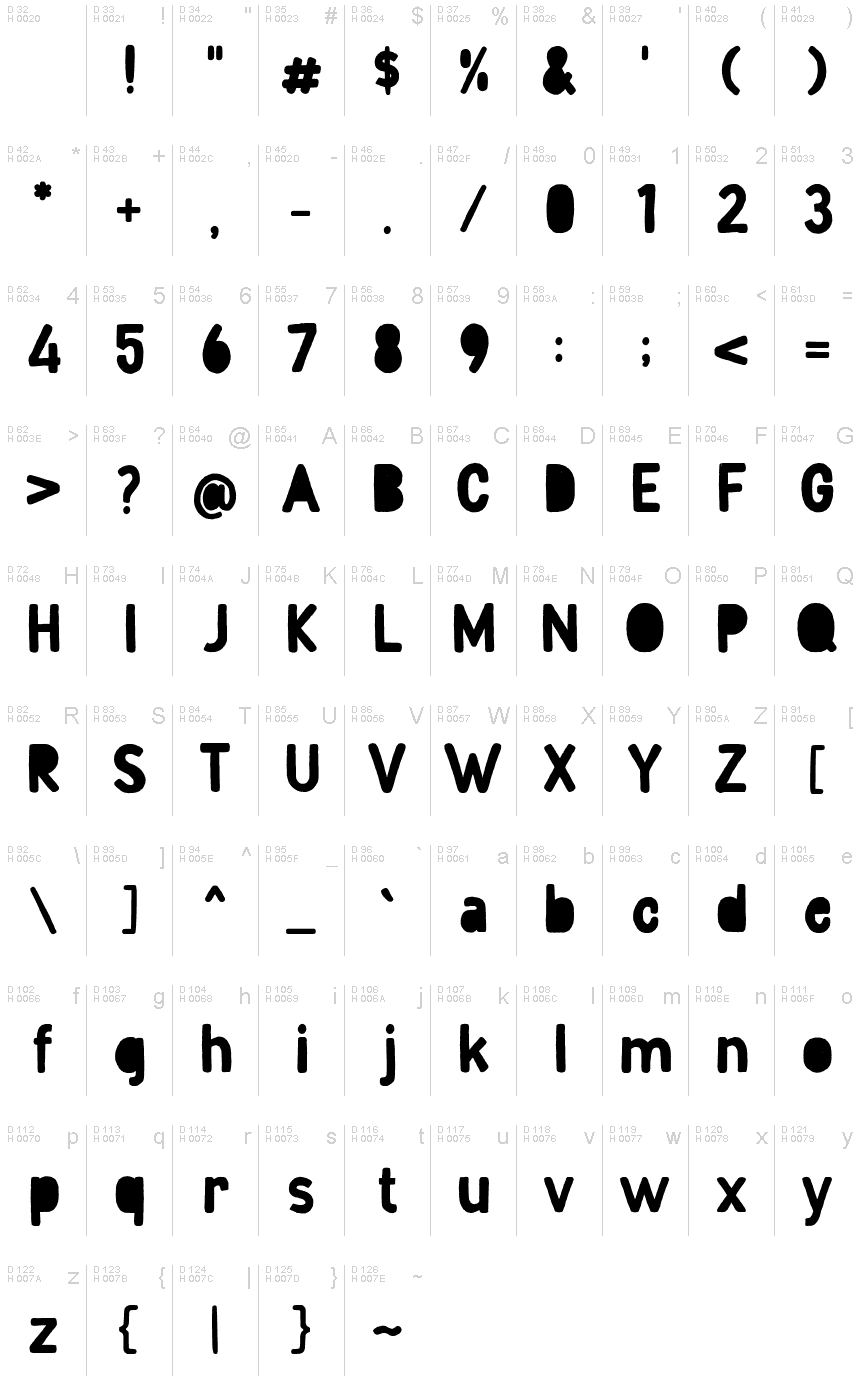
Rumini Namamu
Rumini Namamu is a bold and textured display font designed by Allouse.Studio. This unique typeface is perfect for eye-catching designs that need a bit of a rough edge, such as packaging, posters, and album covers. With its strong weight and character, Rumini Namamu will make sure your message is heard loud and clear. Give your designs a distinct personality with this standout font.